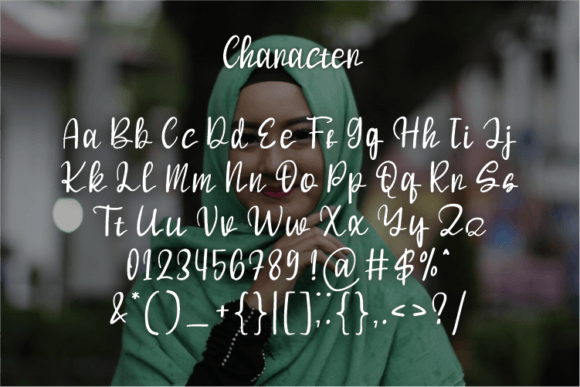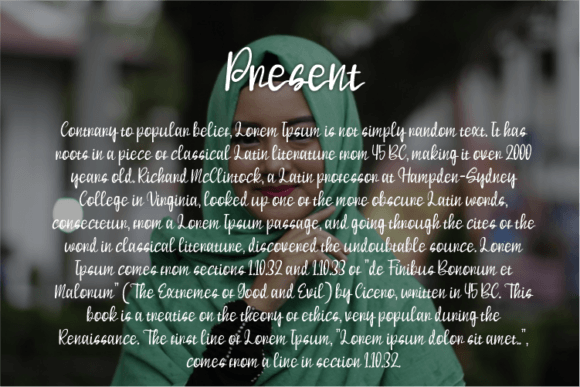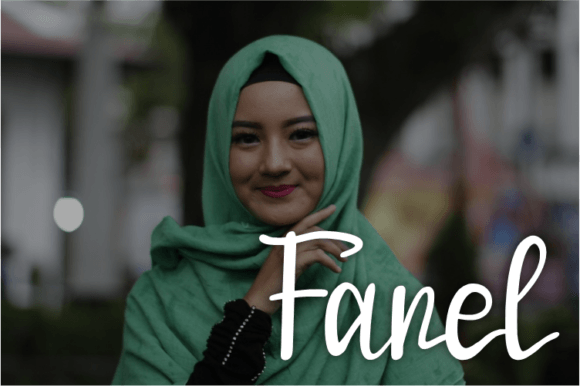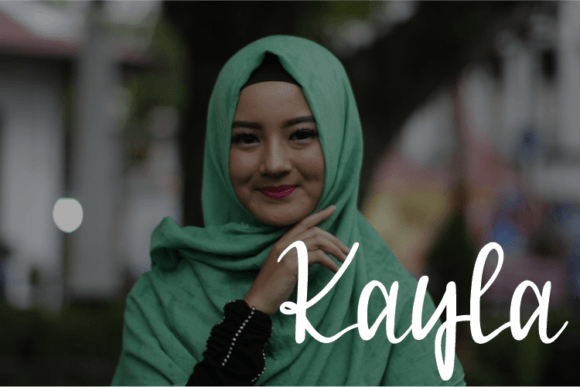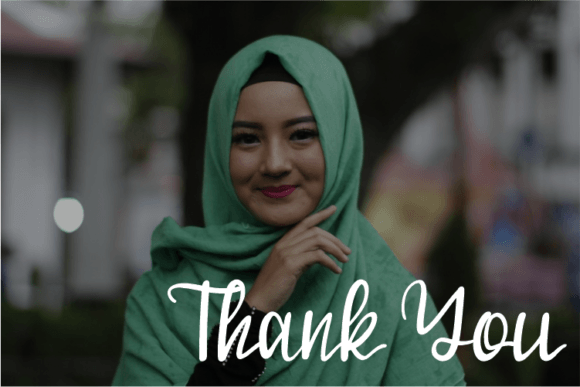
Discover the Elegance of Hanifah Font: Elevate Your Designs with this Stunning Script Typeface
In the world of typography, fonts play a crucial role in conveying the tone and personality of a design. For designers and crafters seeking to add a touch of sophistication and elegance to their projects, Hanifah Font is an excellent choice. This beautiful script font is perfect for a wide range of applications, from casual and formal designs to branding, wedding invitations, greeting cards, and more.
What is Hanifah Font?
Hanifah Font is an elegant script font that boasts a flowing handwriting style, making it ideal for designs that require a personal touch. Its fluid strokes and refined letterforms evoke a sense of luxury and sophistication, perfect for projects that demand high-end typography. Whether you’re working on a wedding invitation, a branding campaign, or a greeting card, Hanifah Font is sure to impress.
Key Features of Hanifah Font
- Elegant Script Style: Hanifah Font features a beautiful, flowing script style that adds a touch of sophistication to any design.
- Versatile: This font is perfect for both casual and formal designs, making it a versatile addition to any designer’s toolkit.
- Highly Readable: Despite its elegant nature, Hanifah Font remains highly readable, even at smaller sizes.
- Wide Range of Applications: From branding and wedding invitations to greeting cards and more, Hanifah Font is suitable for a wide range of design projects.
Uses of Hanifah Font
Hanifah Font’s versatility makes it an excellent choice for various design projects. Here are some of the ways you can use this stunning script font:
- Branding: Create a lasting impression with Hanifah Font, perfect for logos, business cards, and other branding materials.
- Wedding Invitations: Add a touch of romance and elegance to your wedding invitations, save-the-date cards, and other wedding-related designs.
- Greeting Cards: Create beautiful greeting cards for special occasions, such as birthdays, anniversaries, and holidays.
- Graphic Design: Use Hanifah Font in a variety of graphic design projects, including brochures, flyers, and posters.
Tips for Using Hanifah Font Effectively
To get the most out of Hanifah Font, here are some tips to keep in mind:
- Pair with a Sans-Serif Font: Combine Hanifah Font with a sans-serif font to create a beautiful contrast and add visual interest to your design.
- Use for Headings and Titles: Take advantage of Hanifah Font’s elegant style by using it for headings and titles, and a more straightforward font for body text.
- Experiment with Colors and Textures: Don’t be afraid to experiment with different colors and textures to add depth and personality to your design.
Hanifah Font is a stunning script font that offers elegance, sophistication, and versatility. Whether you’re a designer or crafter, this beautiful typeface is sure to elevate your designs and add a personal touch to your projects. With its flowing handwriting style, high readability, and wide range of applications, Hanifah Font is an excellent addition to any design toolkit.